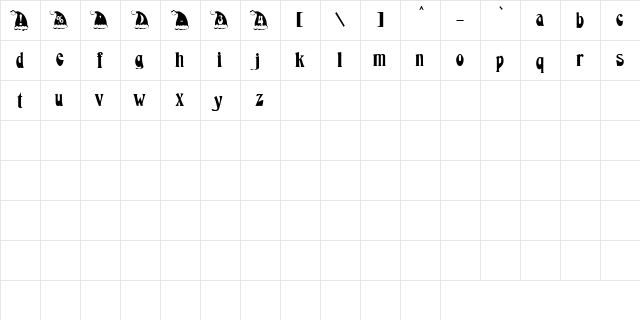
Santa's Hat Regular
Design Context for Santa's Hat Typeface
Santa's Hat is a composed and adaptable typeface that performs quietly and consistently across a wide range of design contexts.